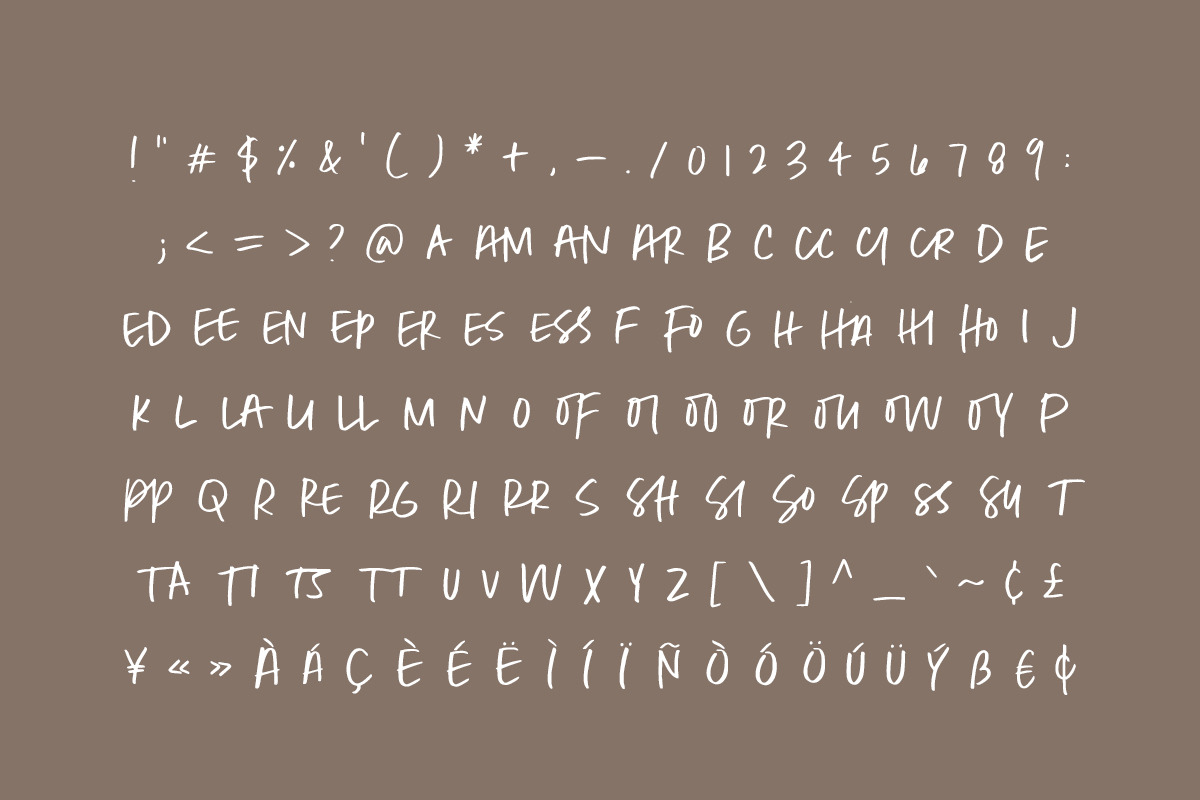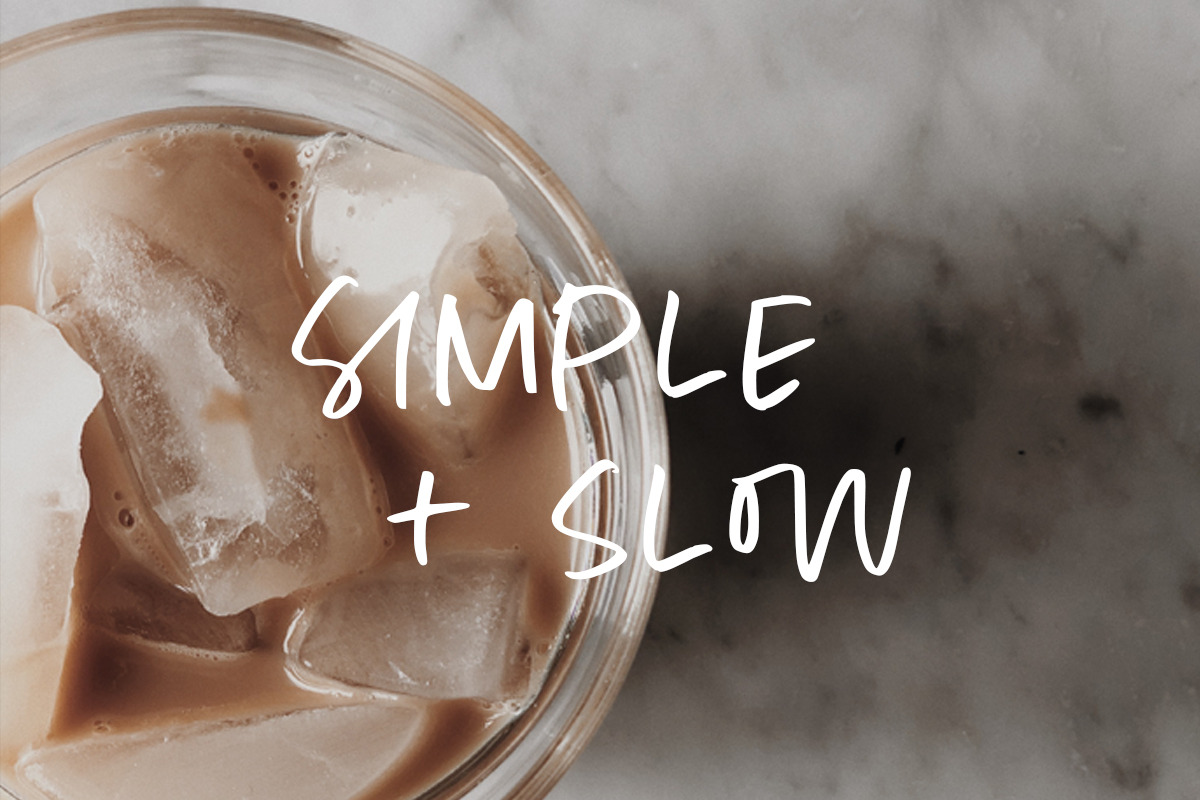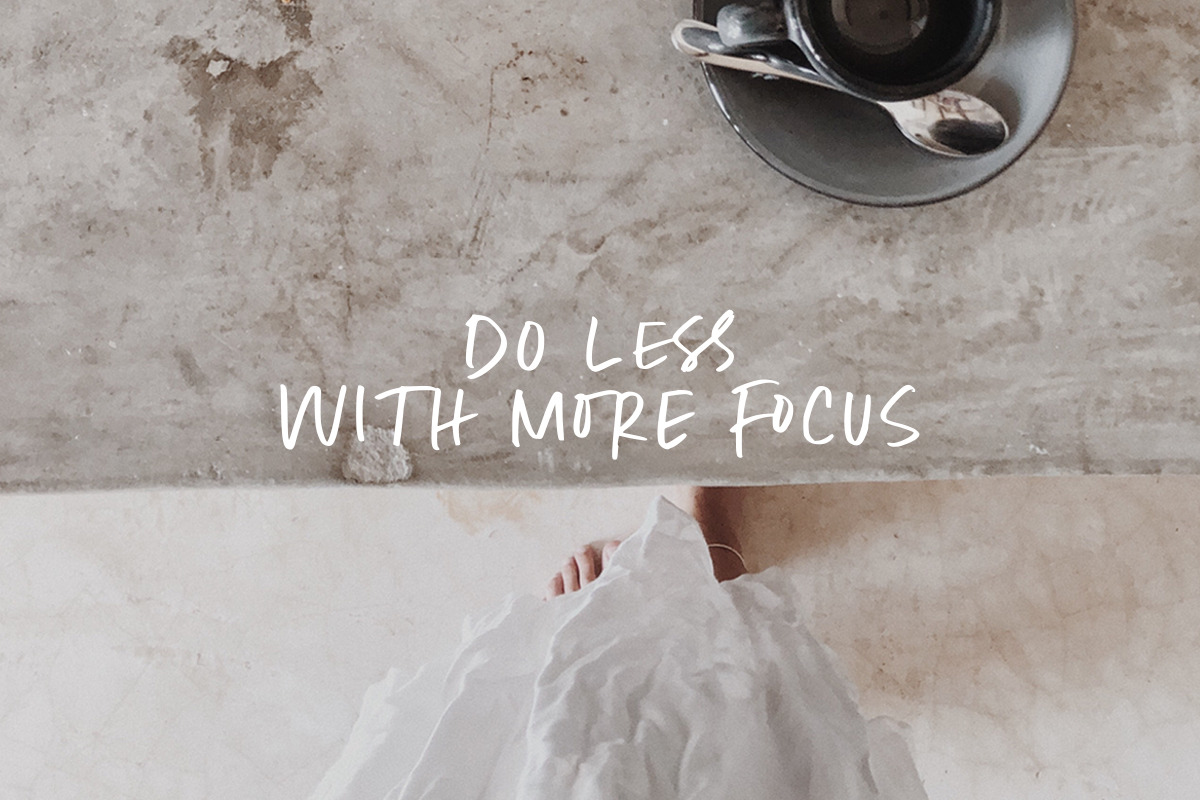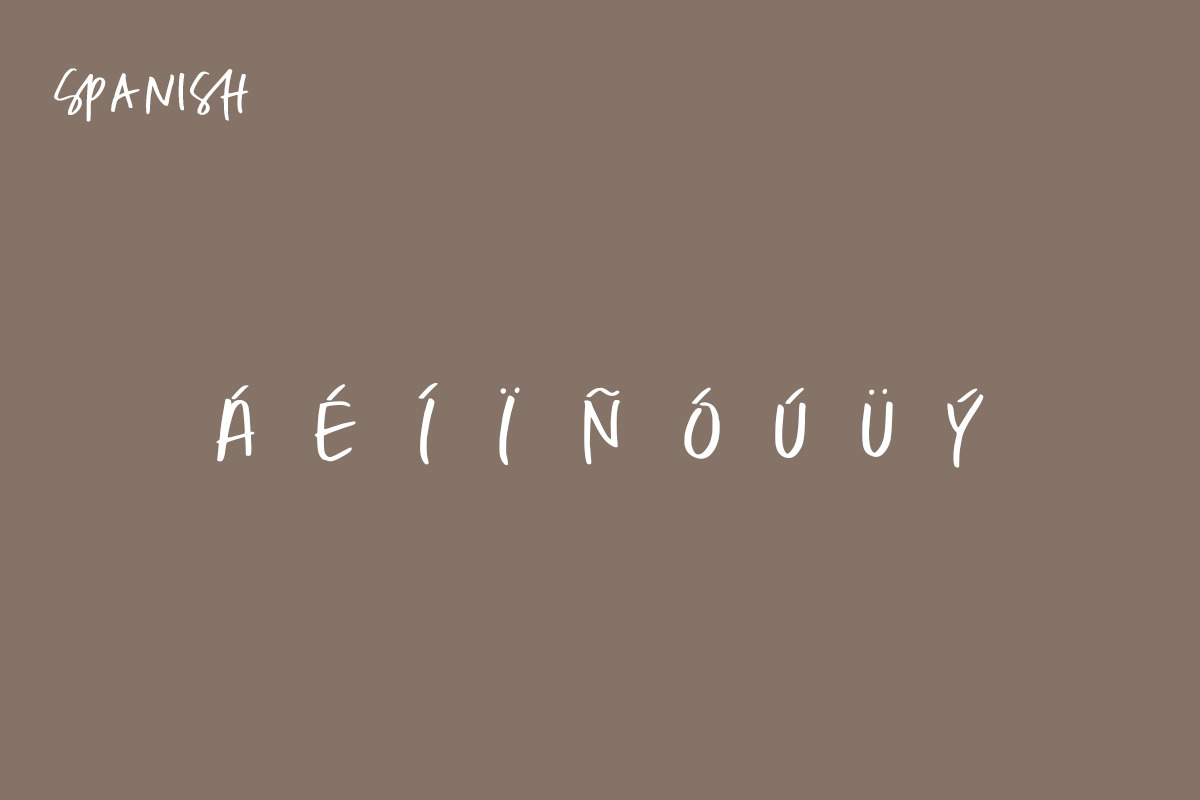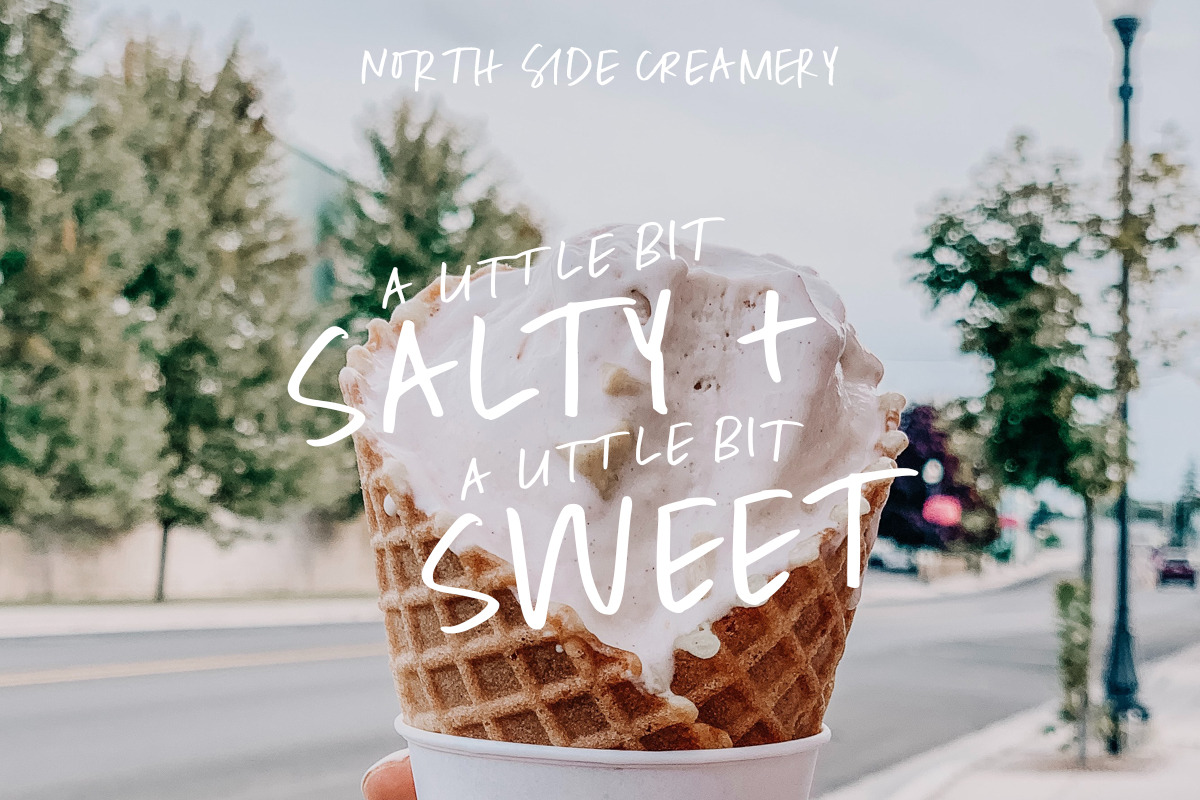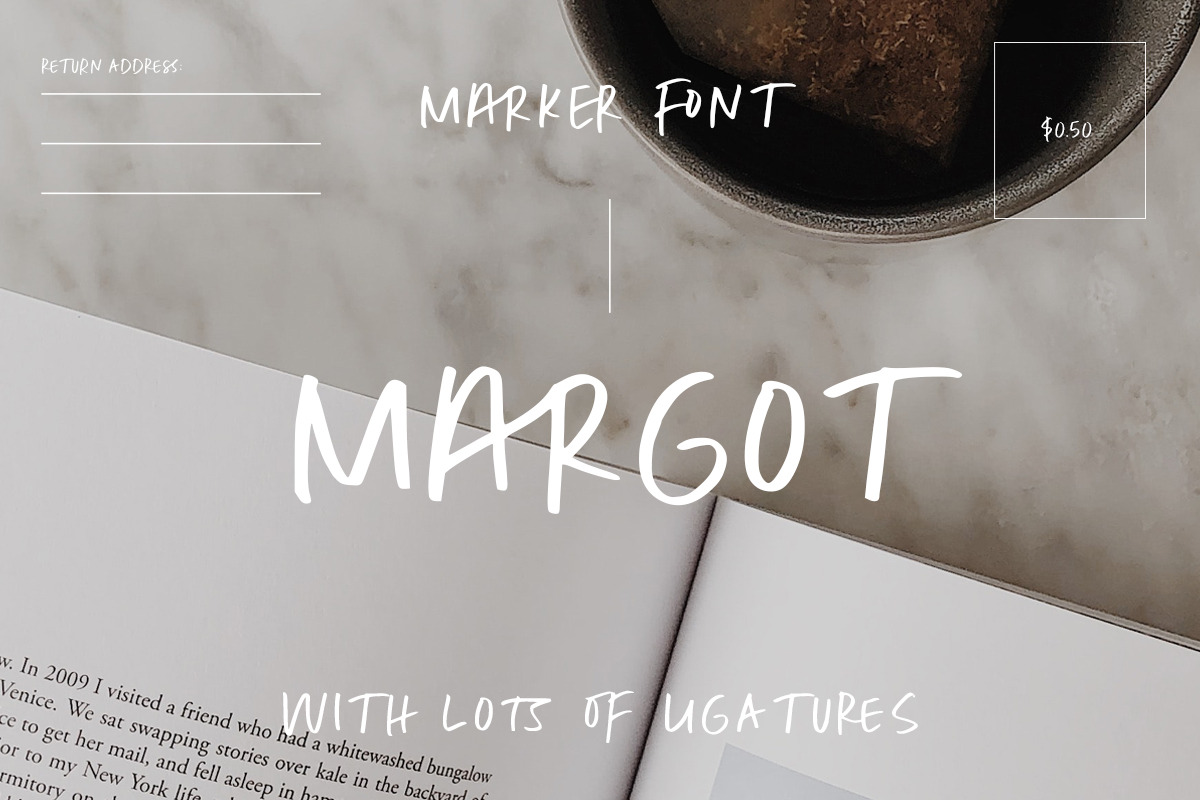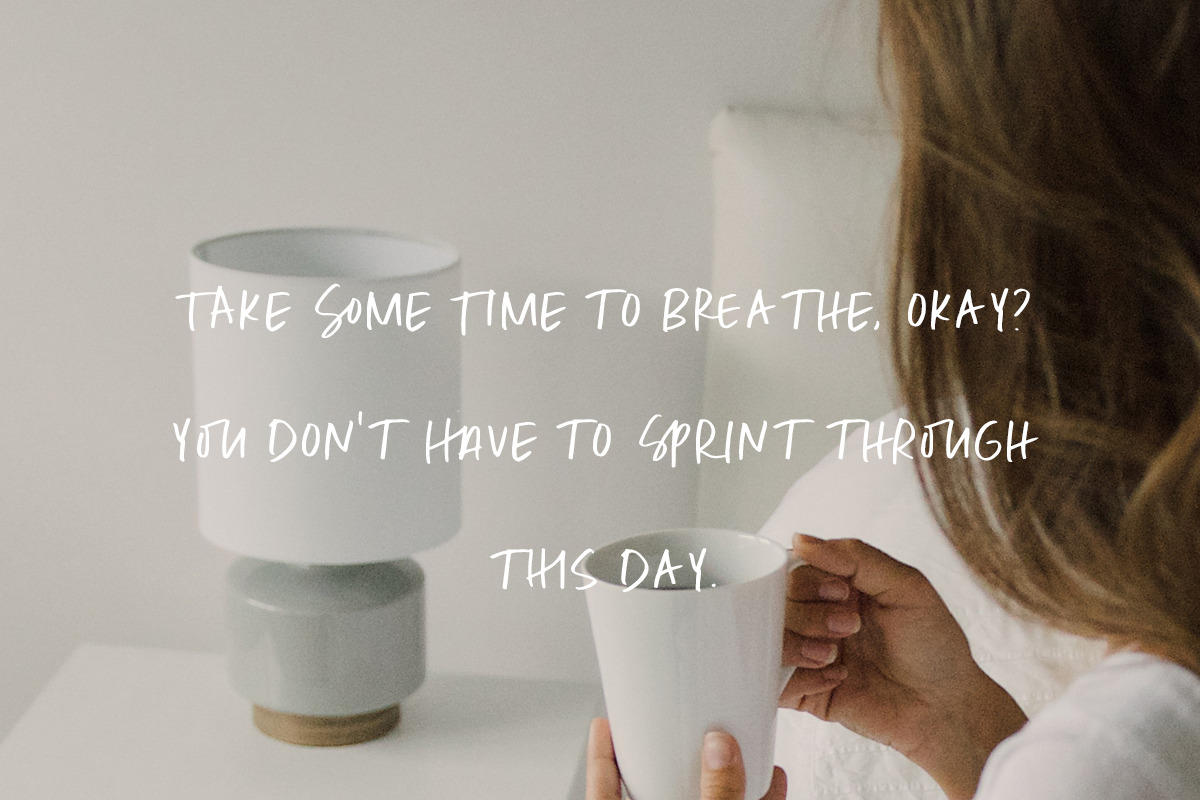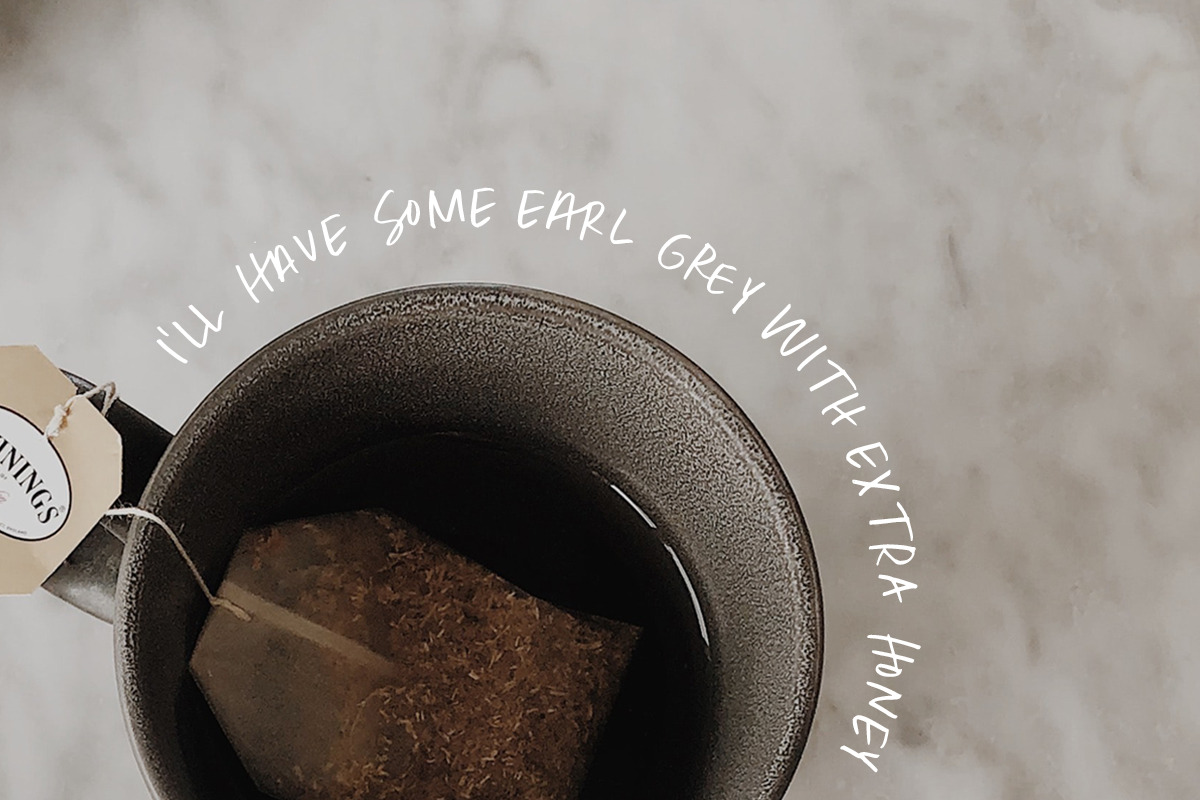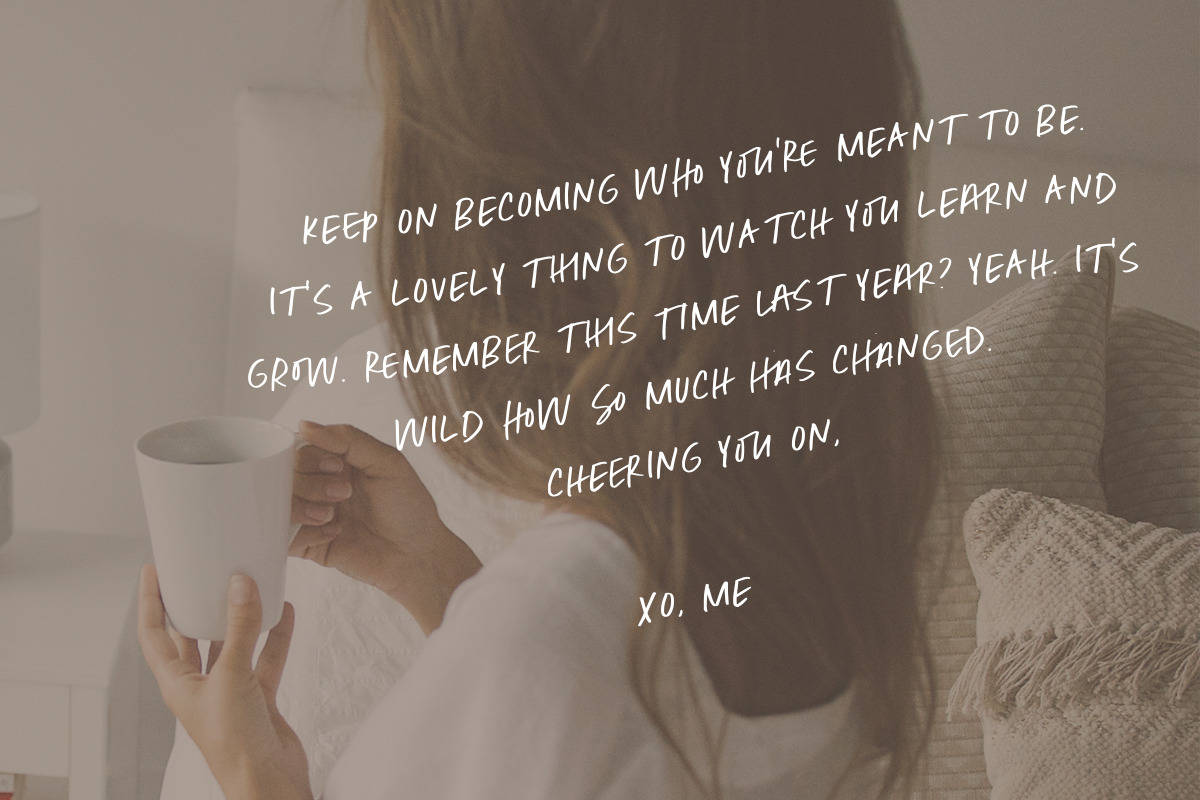
Margot Marker Font
Margot Marker Font - All Caps with lots of Ligatures
Handwritten like a note, this font features all caps, with three variations of each letter, and lots of ligatures for a natural imperfect look. It's perfect for that hand-lettered social media quote, or a bold messy look for an ad campaign.
- ALL CAPS
- LIGATURES
- LETTER VARIATION
- ENGLISH, SPANISH, FRENCH and GERMAN
- NUMBERS and PUNCTUATION